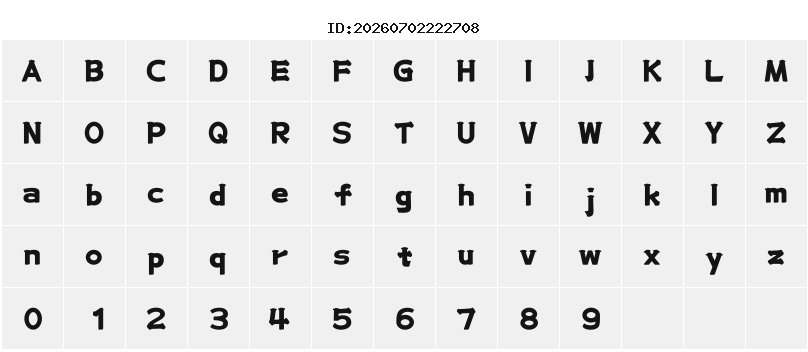
260-上首山岳体 Preview
• Font Name: 260-上首山岳体
• Font ID: 260-SSShanYueTi:Version 4.00
• Full Font Name: 260-上首山岳体
• Version: Version 4.00 July 5, 2023
• PostScript Name: 260-SSShanYueTi
• Character Count: 7567
• Manufacturer: 上首造字
About 260-上首山岳体.ttf
260-上首山岳体.ttf is a modern, elegant sans-serif font designed for ultimate readability and visual harmony. Perfect for branding, headlines, web design, and print materials.